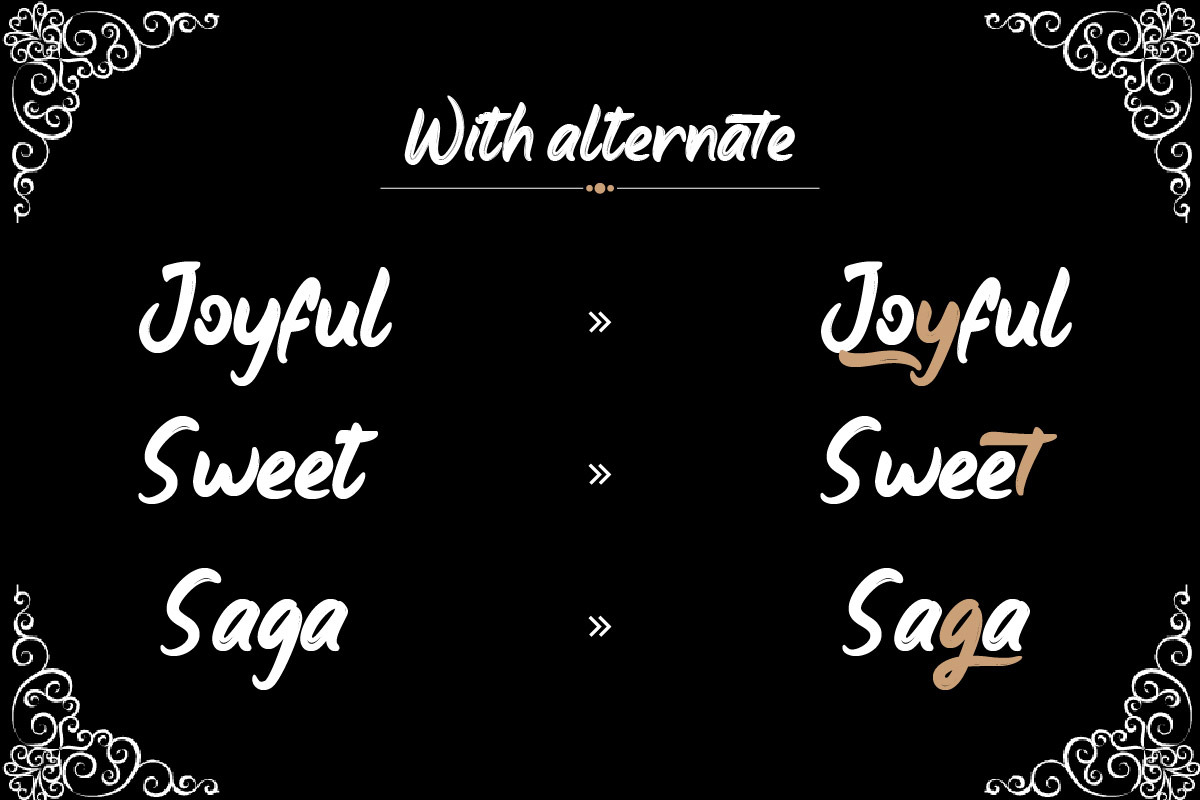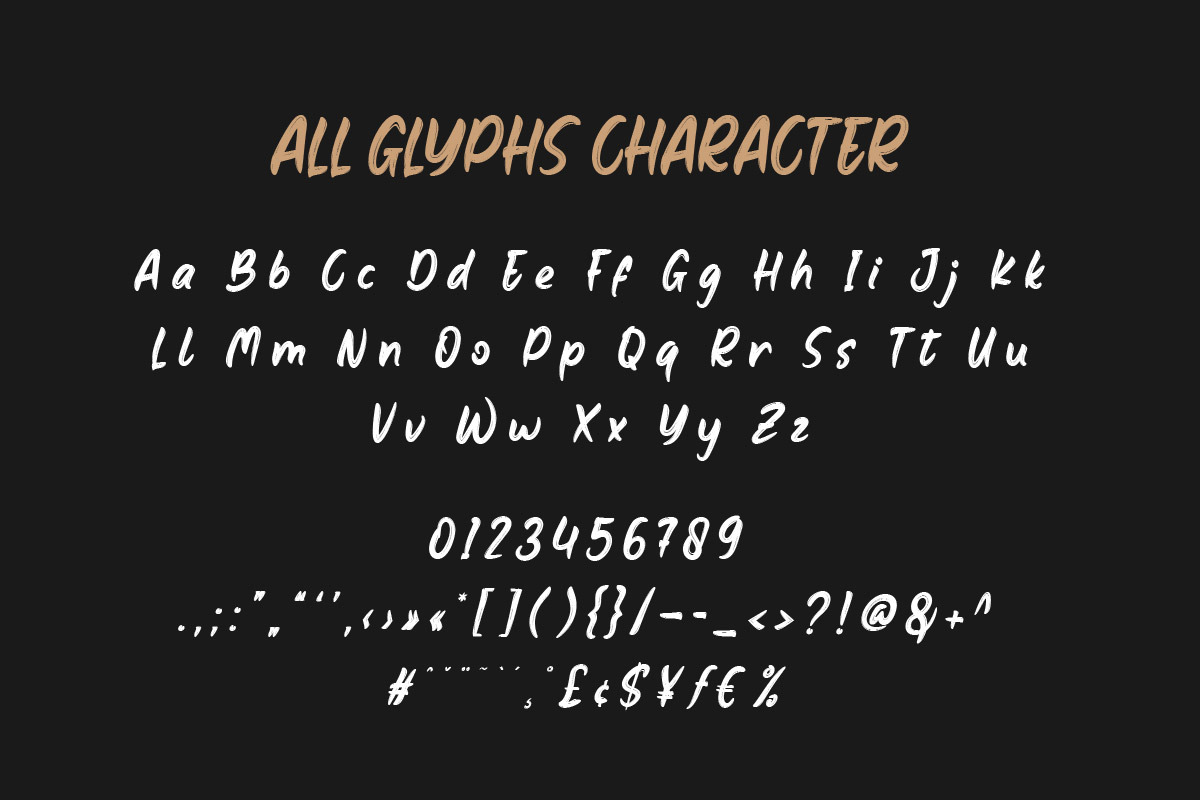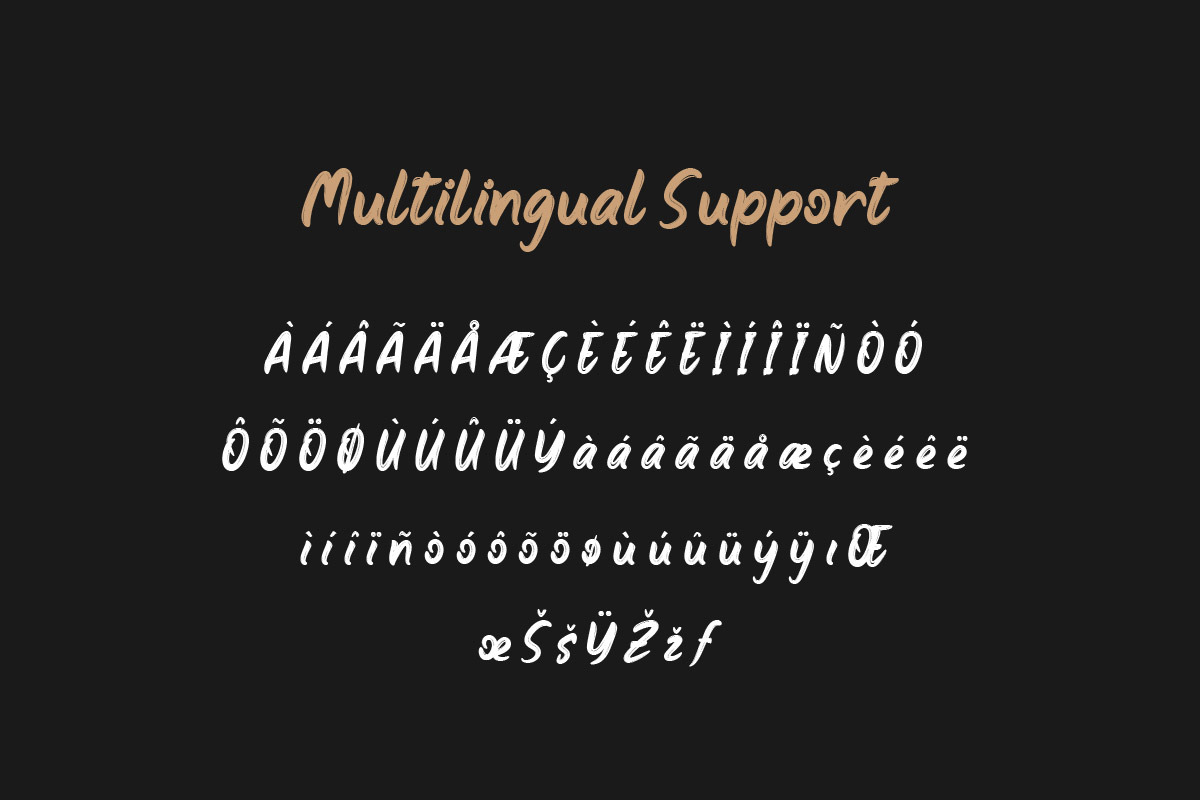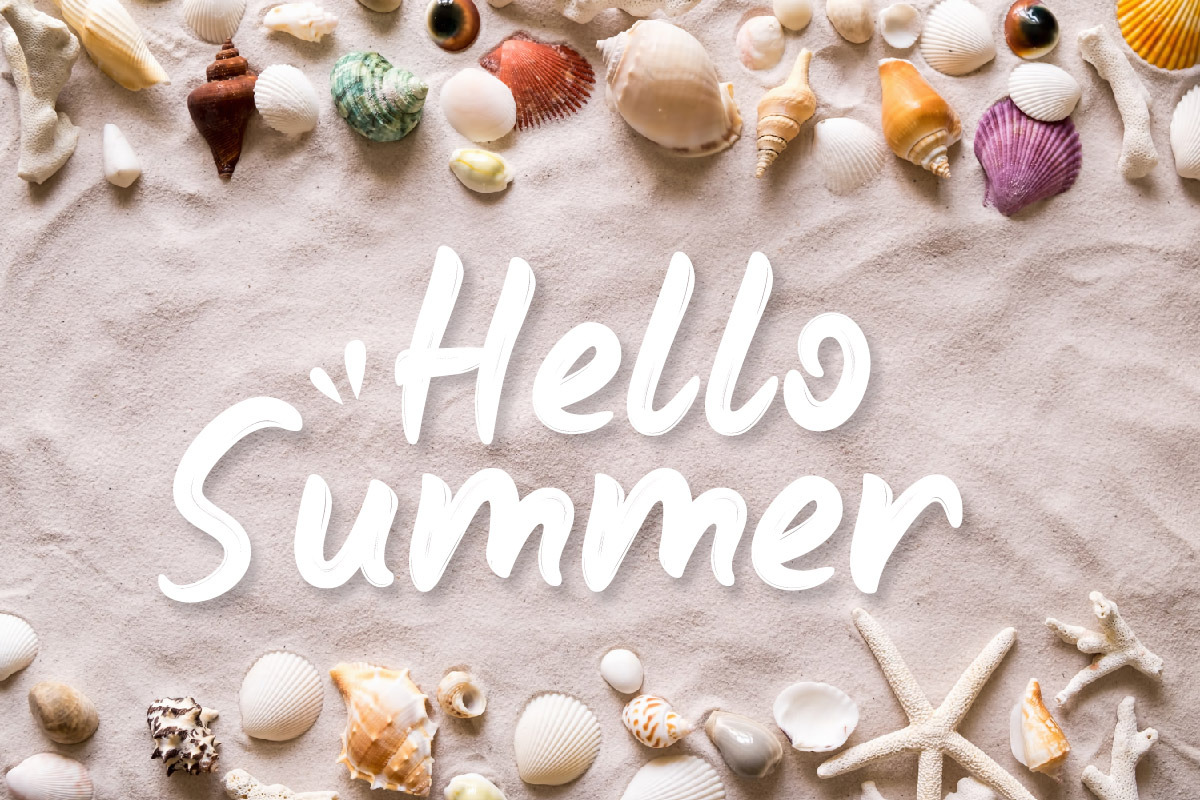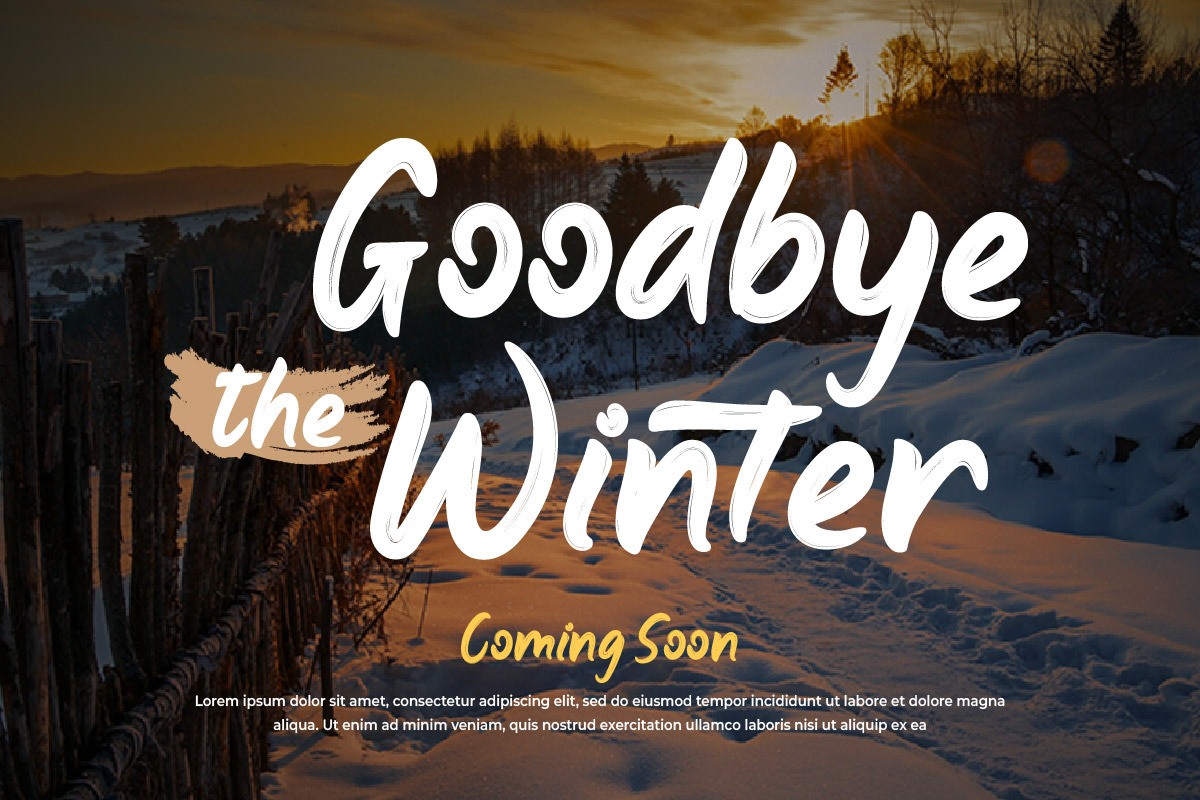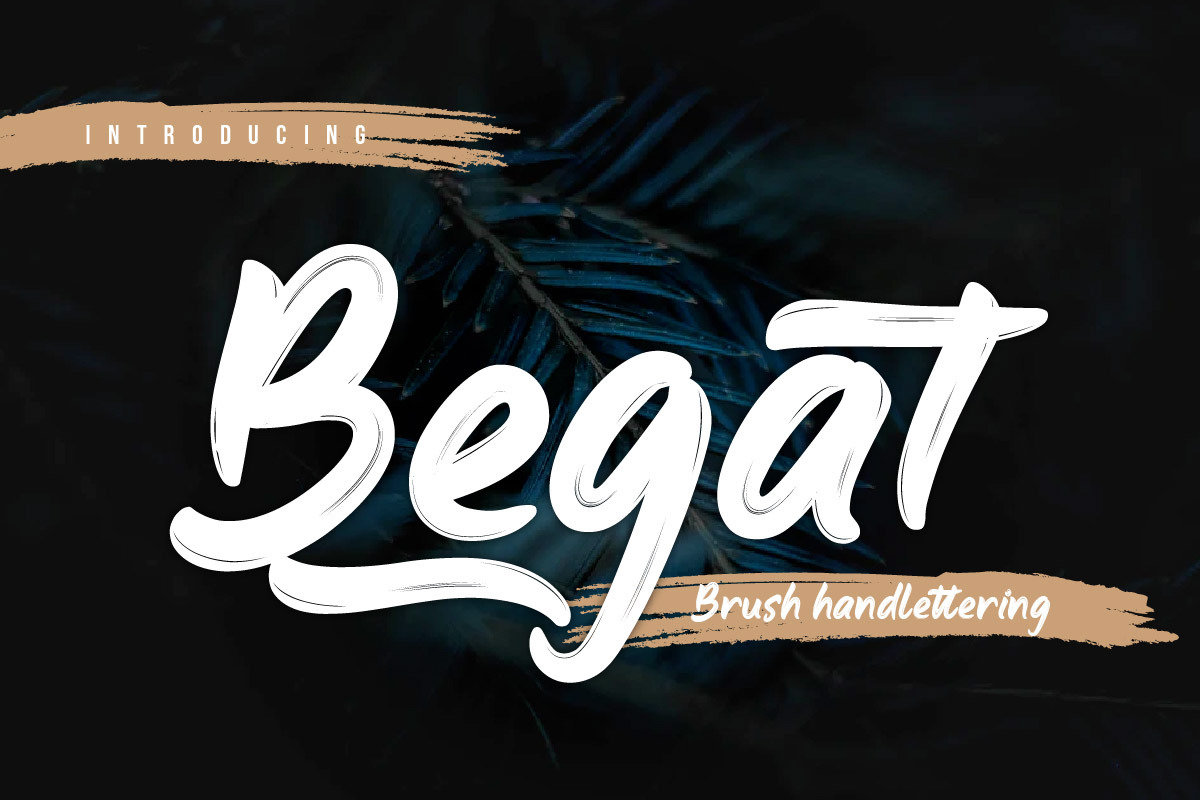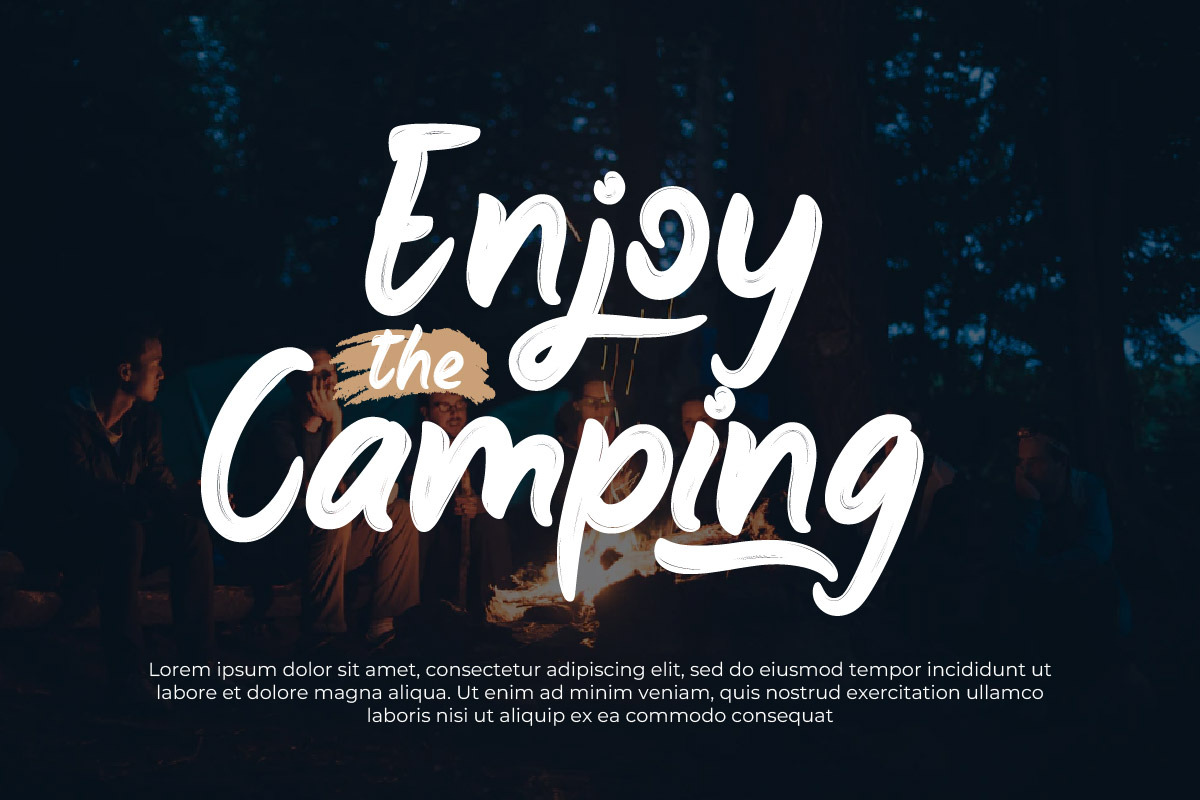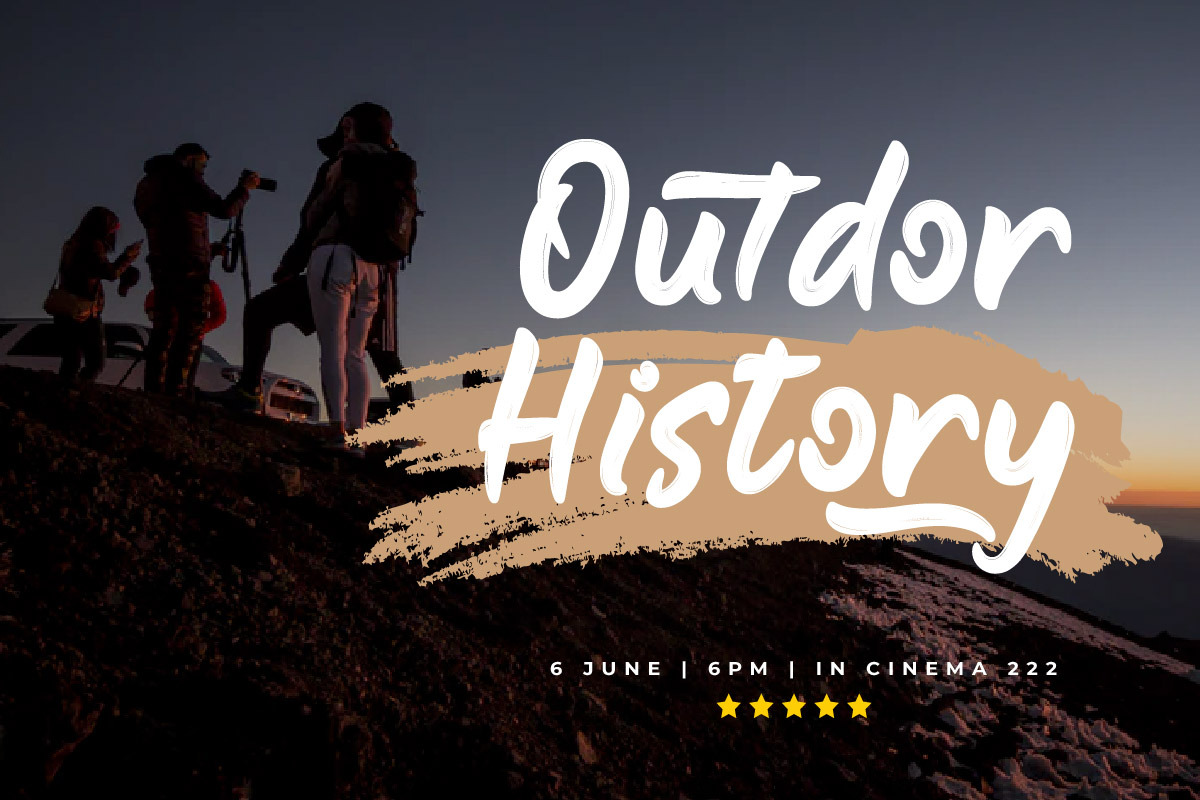
Begat - Brush Handwritten Font
Begat is a brush handwritten font that exudes a sense of casual elegance. Its organic, flowing characters mimic the beauty of human handwriting, making it perfect for designs that require a personal, handmade touch. Whether you’re creating a heartfelt greeting card or a trendy logo, Begat adds a touch of authenticity that is sure to captivate your audience.